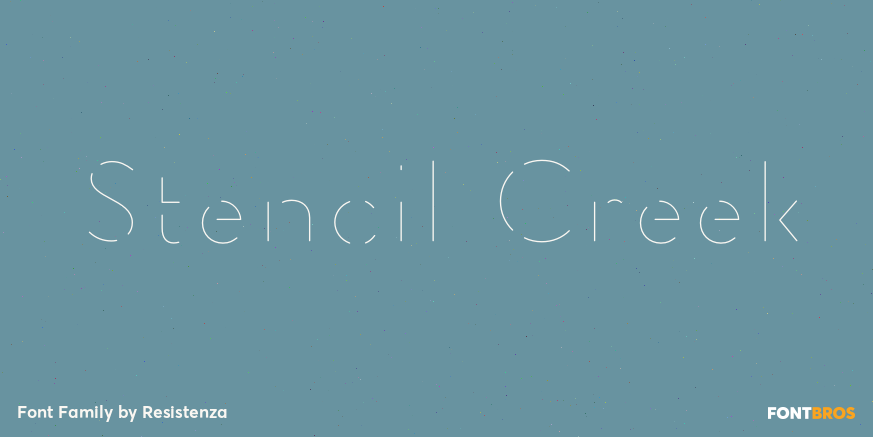
Stencil Creek
About Stencil Creek
Stencil Creek font family is a rounded stencil typeface that comes in eight weights and two rough versions. Is inspired by Akzidenz Grotesk and influenced by street signs of the North West Pacific. You can also overlap some of the weights and get an extra…